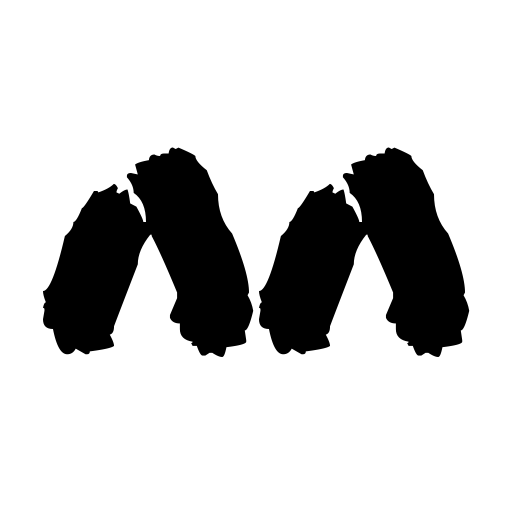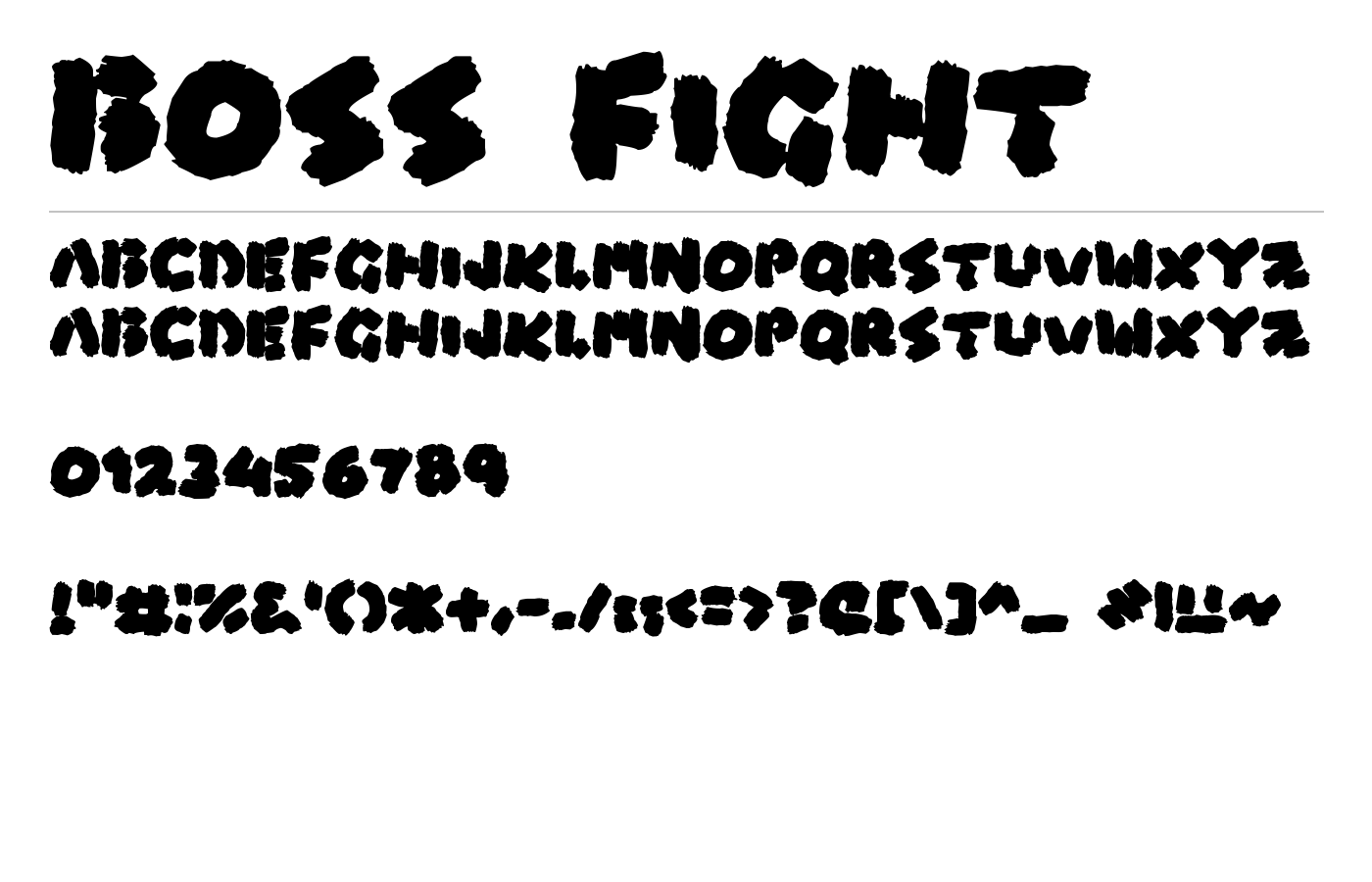
Boss Fight Font is a bold, heavy-weight sans serif with an irregular, rough-edged style that gives it an energetic, gritty, and hand-crafted look. Its playful and chunky letterforms make it ideal for attention-grabbing headlines, posters, and creative branding where a strong, dynamic impact is needed, especially in gaming or urban-themed designs. This font’s unique textured appearance adds a sense of action and intensity, making it perfect for projects seeking a bold, informal, and expressive vibe.
Boss Fight Font